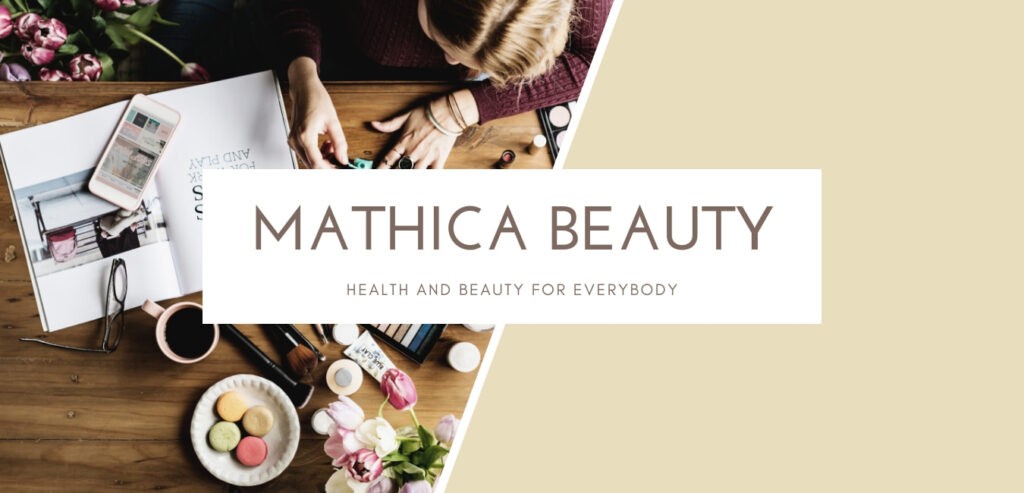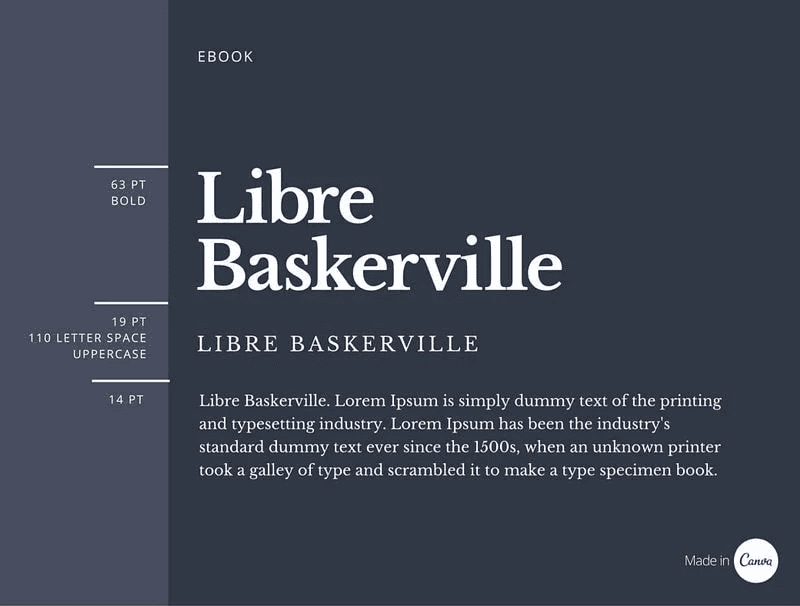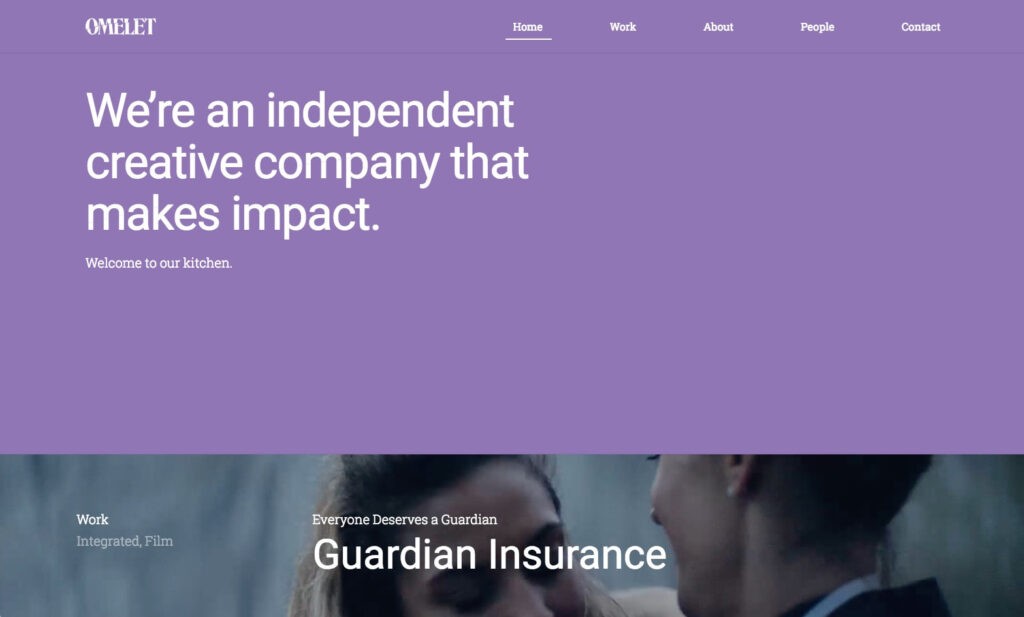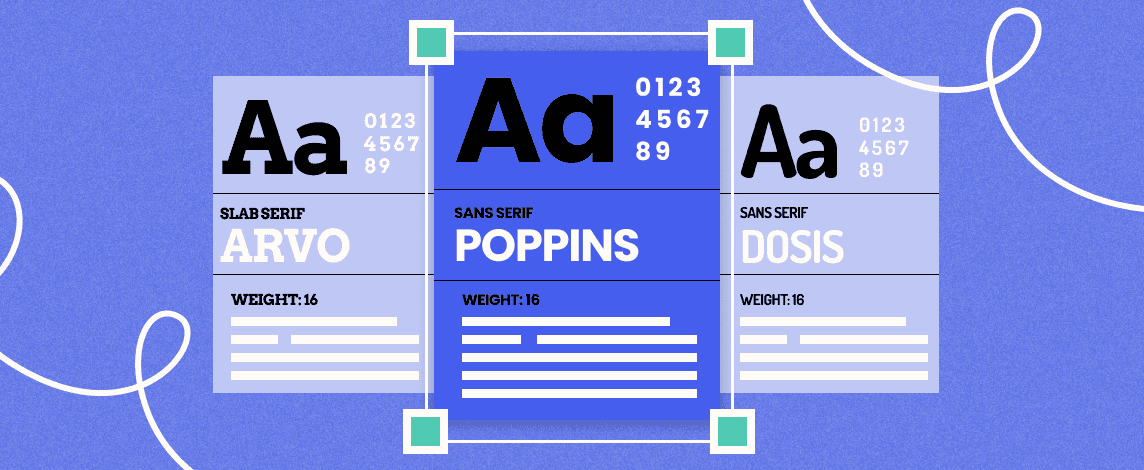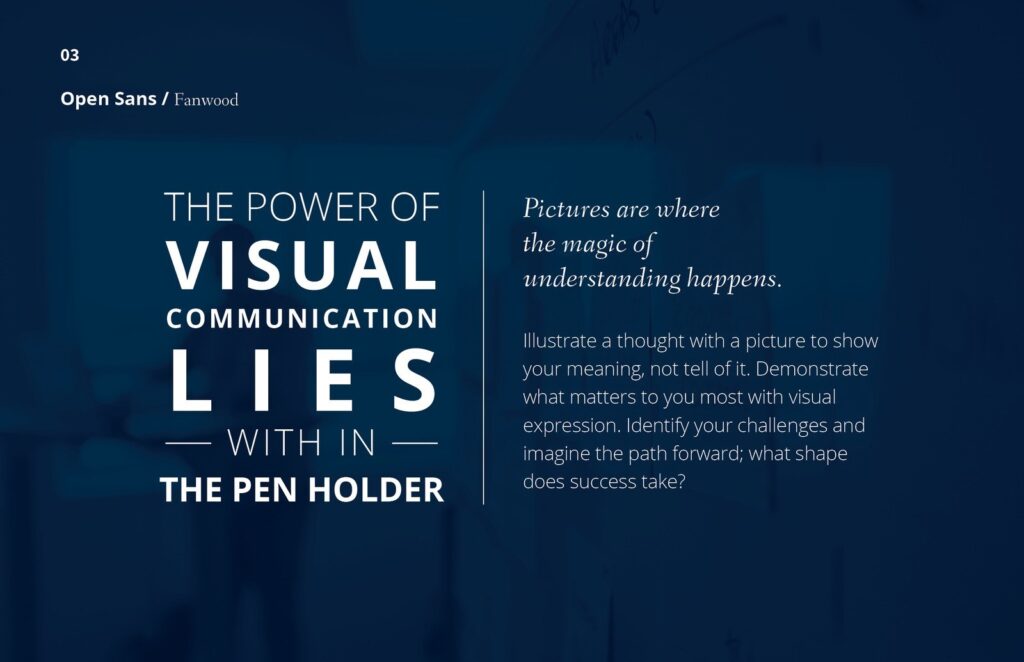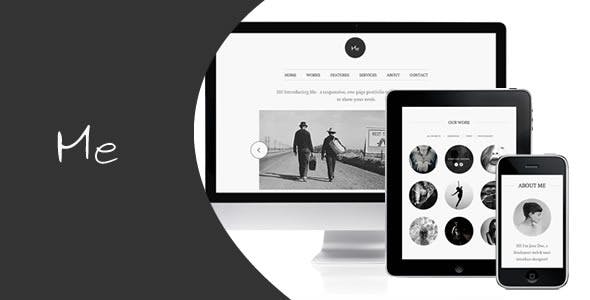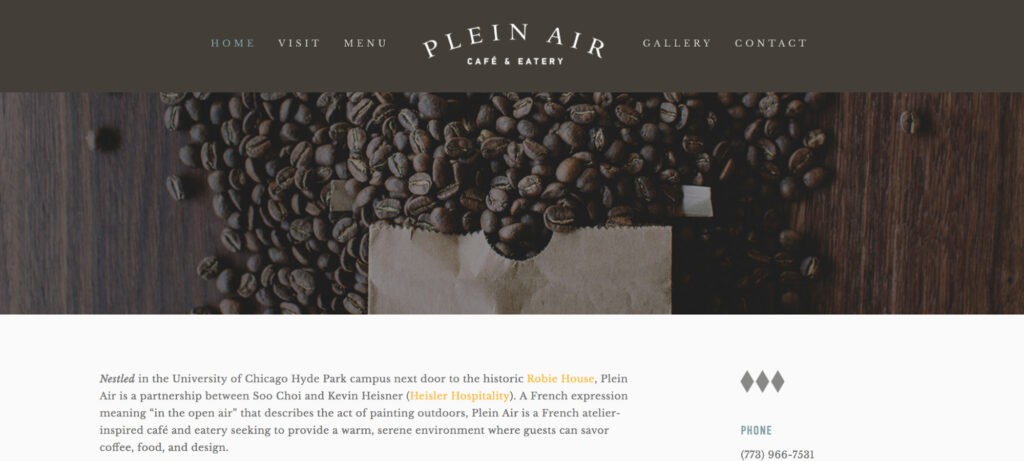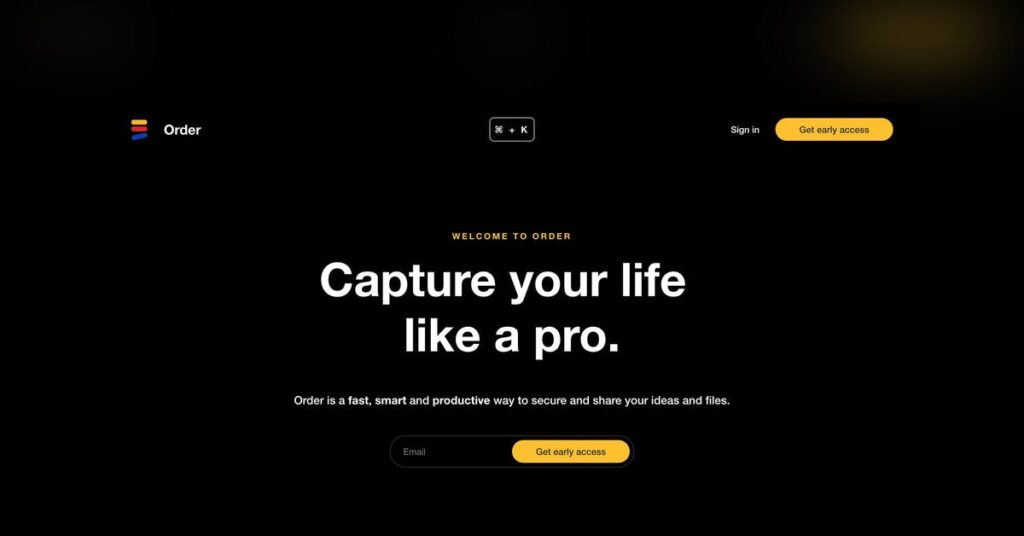
Some popular website font styles express various symbolic meanings that should perfectly fit with your marketing messages. It’s also important to make sure that they are readable and understandable, user-friendly, and internet stable when selecting a skilled font for your website – ensuring they function on all screens and platforms. Regardless of whether you are building an industrial or educational website, an online company, or a digital directory, paying due attention to your choice of fonts can really change the game.
1. Playfair Display
This sleek, glamorous and modern website font is the ideal choice for sites with an audience of women. It comes in a variety of weights, ranging from italic to bold, but its artistic character is mostly used in low weight in headers.
2. Arvo
Arvo,one of the best fonts for your website in 2021, is known for its flexibility, user experience, and graphical san-serif typeface. The product comes in four different cuts, standard, italic, bold and bold italics, and can look either traditional or trendy based on the one you select. For this purpose, it can be an outstanding preference for companies across most business sectors.
3. Dosis
The future-proof, nearly sci-fi quality of this sans-serif font makes it an excellent choice for creative science and technology enterprises. It typically fits fonts like Exo and Lato, which have a visual appeal similar to that.
4. Merriweather
Specifically built for windows, even in small sizes, this serif font can be easily understood, making it a particularly good font for websites. It retains an elegant feeling for brands that are taking themselves very seriously if it is in standard, bold, and italic size.
5. Helvetica
Thanks to its versatility, Helvetica is one of the most popular website fonts in the world – with over 100 ready-to-use variants! It was also one of the oldest, since 1957. Nevertheless, its success can be related to its standard, contemporary charm, although it’s rather a traditional typeface.
6. Montserrat
This geometrical font, no matter whether it is in the header or smaller text, can be utilized nearly anywhere inside your website, making it the safest website fonts out there. With a fierce and young look, this is a wonderful choice for a millennium population, which is why multimedia and innovative agencies also find it a very useful choice.
7. Open Sans
Often this smooth font is represented as simple, modernist, and highly accessible. While this is a secure choice as a modern website font, its performance and quality management appears to function best for companies with their highest values.
8. Lato
This sans-serif popular website font has been specifically designed for business purposes and therefore appears to fit ideally for companies on this traditional side. It is very authentic, but also friendly and welcoming.
9. BEBAS NEUE
This all-caps, serifless professional website font is ideally suited for typing out headers. Like Dosis, the style and design are subtly modern and complements technology labels. It typically fits other fonts such as Montserrat, Lato, Playfair.
10. Josefin Sans
Josefin Sans is an angular website font with a sleek and retro look, based on font patterns of the 1930s. Because of its elegant air, it is also used by luxury, fashion, and makeup brands. It covers the whole range from thin to dark font weights.
11. Abril Fatface
A typeface can’t take itself too sincerely with a title such as Abril Fatface. But let’s not judge a book by its cover here! This angled serif font, one of the best fonts to use for a website, generates warm intensity and a style that is somewhat quirky. Brands usually use this for imaginative and enjoyable purposes.
12. Quicksand
Both in the smaller cases, delicate or bold upper cases, the lively nature of Quicksand is preserved. The geometrical font of San Serif is ideally suited to friendly, young brands or advertising for kids.
13. Exo
What began as a Kickstarter venture is now one of the most popular website fonts in the world today. Exo is a geometric sans-serif font with a wide font community that makes it an advanced technology and gaming company’s flexible choice.
14. Libre Baskerville
Studies have shown that Libre Baskerville is considered the most credible market brand. This is why banks, finance companies, and other investment companies commonly use the serif font as a popular website font.
15. Roboto
Roboto is classified as a neo-Grotesque font – it is not futuristic, it refers to its Gothic roots. The type of sans-serif is fascinating since its angular and open shapes are also available. The effect is a font that simultaneously looks pleasant and highly competent, making it one of the best fonts for websites in 2021.
16. Times New Roman
While many artists mock Times New Roman, this iconic font is hard to compete with. The serif font is simple, comprehensible, and eternal, never out of aesthetic.
Komoda is an exceptional, sans serif show typeface. The thin typeface adds a beautiful height and genuinely separates them from standard without serif show fonts. Try to connect it to a squatted, bold fonts and something that pops out will be produced.
3. What is meant by a script font?
Script logo fonts are both professional and informal styles with script handwriting layers and productivity. Sans-serif logo typography falls short of the “feet ” at the edges of each letterform and is regarded as more contemporary than their serif equivalents.